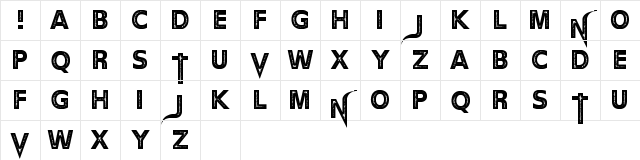
The Devil Net Regular
Foundry: Font Monger
Designer: Chris Vile
Design Context for The Devil Net
The Devil Net is a composed and adaptable typeface that performs quietly and consistently across a wide range of design contexts.